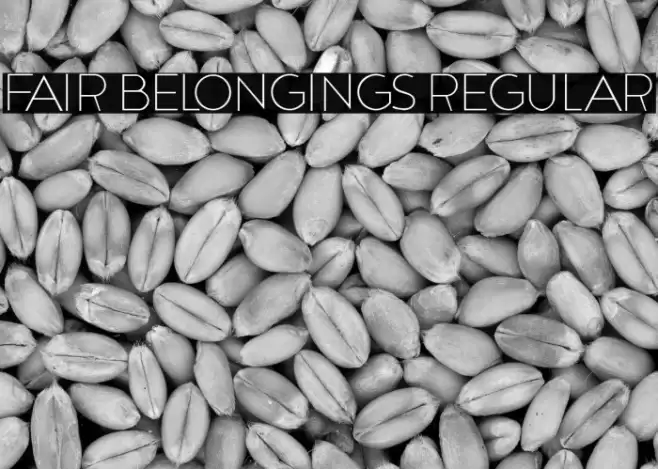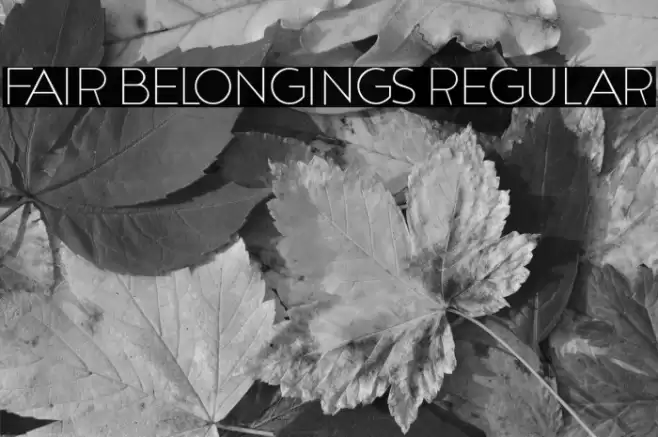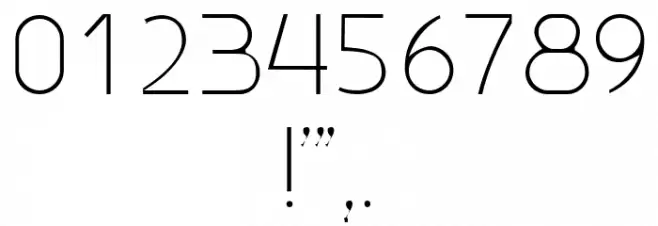
Fair Belongings Regular Font
Fair Belongings Regular Description
This font features a clean and modern design with geometric influences. The characters are constructed with straight lines and smooth curves, giving it a sleek and contemporary appearance. The uppercase and lowercase letters maintain a consistent style, with a focus on simplicity and readability. The numerals are equally well-designed, matching the overall aesthetic of the alphabet. Special characters are included, adding versatility for various uses. The font's minimalistic approach makes it suitable for a wide range of applications, from digital interfaces to print media.
A modern, geometric sans-serif font with clean lines and a sleek appearance from Regular fonts.
- Proposed Projects: Ideal for branding, web design, advertising, and editorial layouts.